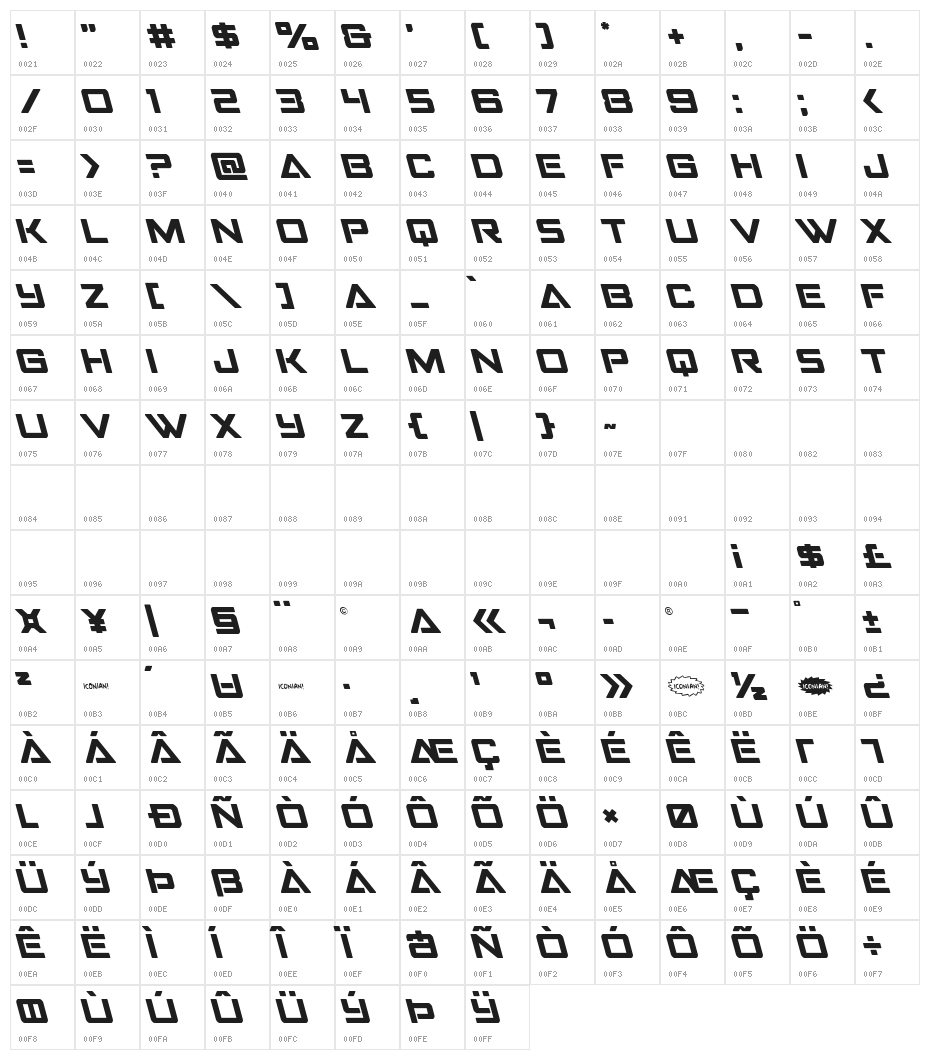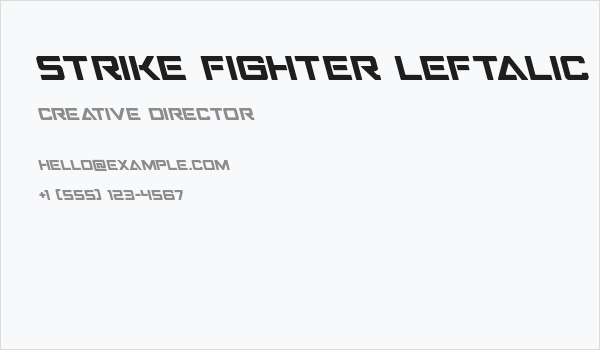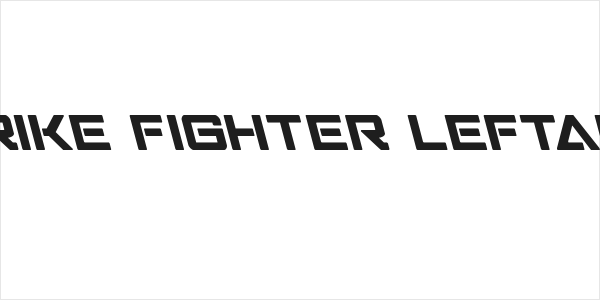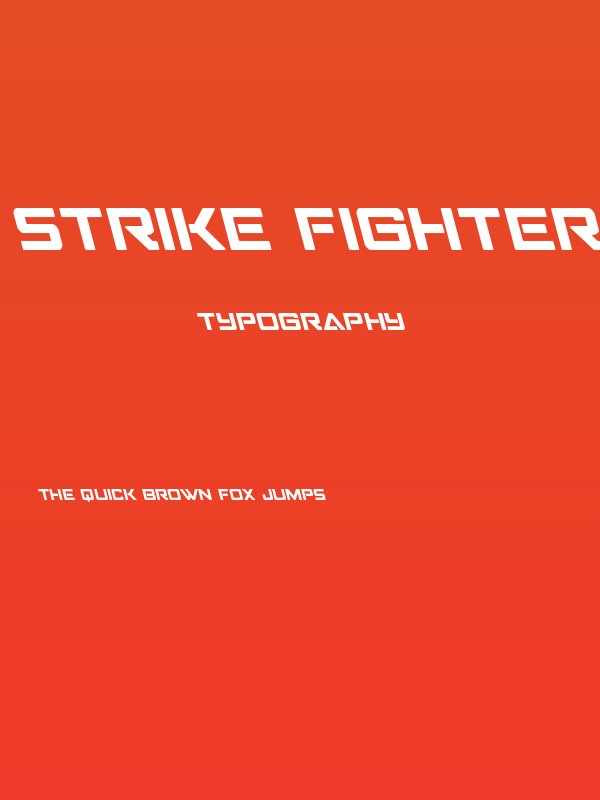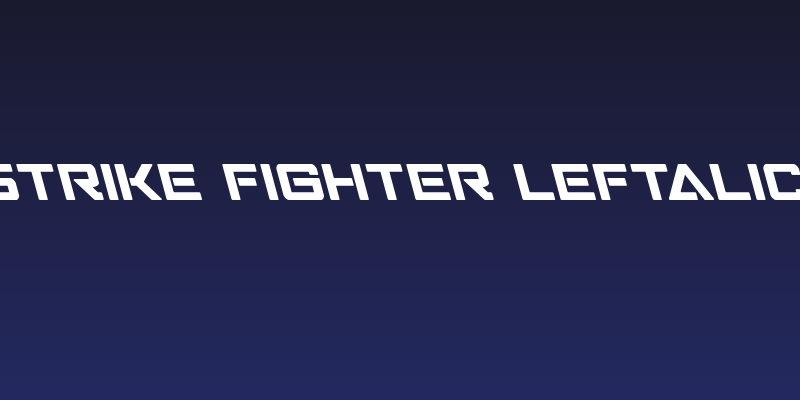
Strike Fighter Leftalic Font
Strike Fighter Leftalic Description
This font features a bold, angular design with a futuristic and dynamic appearance. Its geometric shapes and sharp edges give it a strong, impactful presence. The characters are slightly slanted, adding a sense of motion and speed, reminiscent of technology and modern machinery. The uppercase letters are uniform in height, while the numerals maintain the same bold style, ensuring consistency across all characters. The special characters are designed to match the overall aesthetic, making this font suitable for projects that require a modern and edgy look.